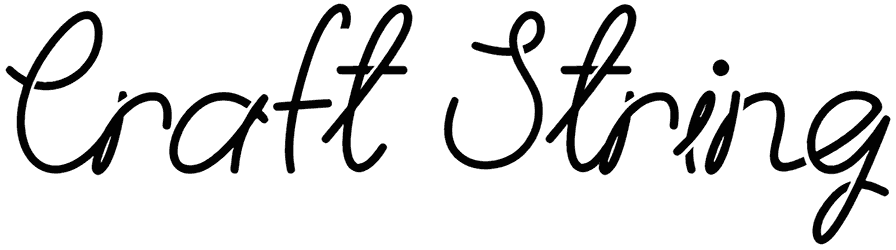
Be Childish Font
If you want to convey the pure vibe of the kids’ world, this handwritten font is gonna be the right option. The realistic and casual form of letters can add a cute style to your back-to-school flyer. The Be Childish font is also a good choice for a sweet daily Instagram story or whatever you want.